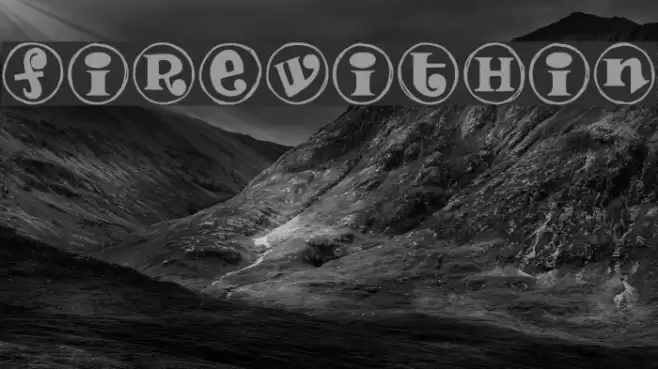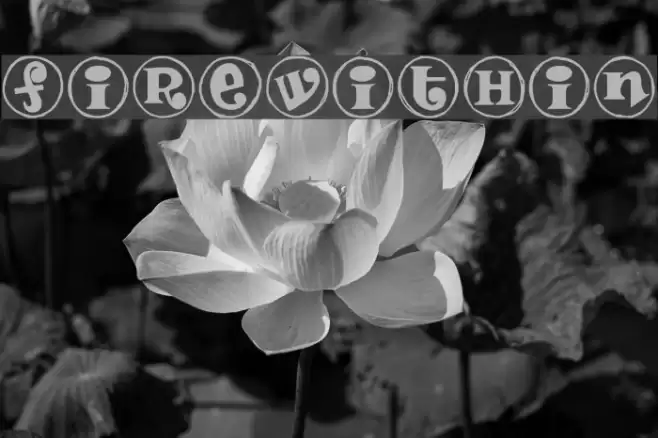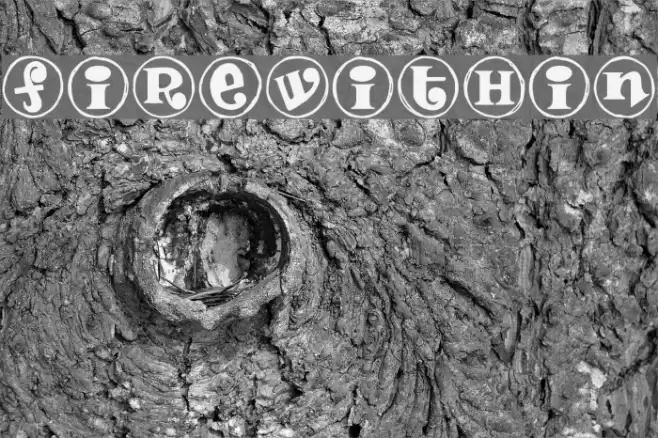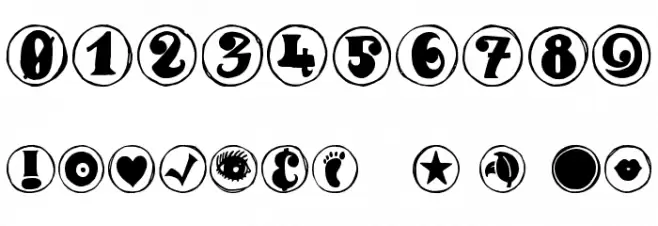
FireWithin Font
FireWithin Description
This font features a playful and decorative style, with each character enclosed in a circular border. The letters are bold and have a whimsical, almost cartoon-like appearance, with varying stroke thicknesses that add to its charm. The font includes both uppercase and lowercase letters, numbers, and a selection of special characters, each maintaining the circular motif. The design is eye-catching and unique, making it suitable for creative and informal projects. Its boldness and decorative nature make it stand out, while the circular enclosures give it a cohesive and structured look.
A playful, decorative font with bold characters enclosed in circles from Decorative fonts.